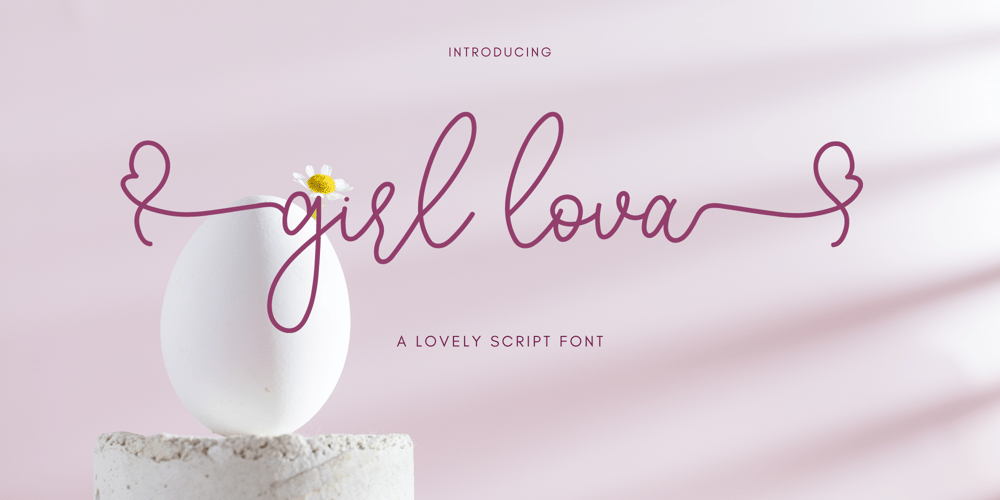
Girl lova Font Family was designed by Amin Maryono and published by Aminmario Studio. Girl lova contains 2 styles and family package options. IntroducingGirl Lova FontGirl Lova is a lovely script font. Its charm makes it appear wonderfully, readable, and, ultimately, incredibly versatile. Comes in Regular and Italic styles.Equipped with beginning and ending love tail.This font will look outstanding in any context, whether it’s being used on busy backgrounds or as a standalone headline!Thank you for the purchase.Happy creating design 🙂